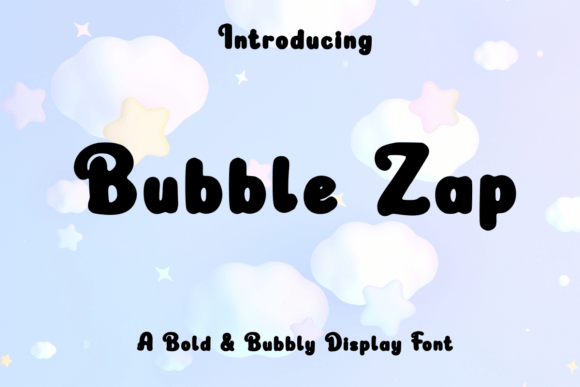
Bubble Zap Font: The Ultimate Choice for Playful and Colorful Designs
The world of typography is vast and diverse, offering a multitude of font styles to suit various design needs. Among these, the Bubble Zap Font stands out as a vibrant and energetic display font that embodies the spirit of fun and playfulness. Designed with bold, rounded letters, this font is tailor-made for projects that require a lively and engaging visual appeal. In this article, we’ll explore the features, benefits, and uses of the Bubble Zap Font, and why it’s becoming a favorite among designers and DIY enthusiasts alike.
What is Bubble Zap Font?
Bubble Zap Font is a bubbly, cartoon-inspired display font that bursts with energy and fun. Its bold, rounded letters make it a perfect choice for children’s products, birthday party invitations, toys, games, educational materials, stickers, packaging, and more. The font’s design is centered around creating a playful and friendly aesthetic, making it ideal for any project that aims to capture the attention of a younger audience or evoke a sense of nostalgia.
Key Features of Bubble Zap Font
- Full Standard Character Support: The Bubble Zap Font includes a comprehensive set of characters, ensuring that you have access to all the letters, numbers, and punctuation marks you need for your designs.
- Punctuation and Multilingual Glyphs: Beyond standard characters, this font also supports punctuation and multilingual glyphs, making it versatile for projects that require a range of special characters or languages.
Ideal Use Cases for Bubble Zap Font
The Bubble Zap Font’s playful and energetic vibe makes it suitable for a wide range of applications. Here are some of the ideal use cases for this font:
- Children’s Products: From educational materials to toys and games, the Bubble Zap Font is perfect for creating engaging and fun content for kids.
- Birthday Party Invitations: Make your party invitations stand out with this vibrant font, setting the tone for a fun and memorable celebration.
- Educational Materials: The font’s clarity and playfulness make it an excellent choice for textbooks, workbooks, and other educational resources aimed at children.
- Stickers and Packaging: Add a playful touch to your product packaging or stickers with the Bubble Zap Font, making them more appealing to your target audience.
Design Tips for Using Bubble Zap Font
To maximize the impact of the Bubble Zap Font in your designs, consider the following tips:
- Pair with Complementary Fonts: While the Bubble Zap Font is bold and playful, pairing it with simpler fonts can create a balanced and visually appealing design.
- Experiment with Colors: This font looks great in bright, vibrant colors. Don’t be afraid to experiment with different color combinations to find the perfect match for your design.
- Use Appropriate Sizing: The Bubble Zap Font is designed to be eye-catching. Use it in appropriate sizes to ensure it stands out without overwhelming your design.
The Bubble Zap Font is a versatile and fun display font that can add a playful touch to a wide range of design projects. Its bold, rounded letters and friendly aesthetic make it an excellent choice for designers and DIY enthusiasts looking to create engaging and lively content. With its comprehensive character set, multilingual support, and compatibility with popular design tools, the Bubble Zap Font is poised to become a staple in your font collection.
Whether you’re creating children’s products, birthday party invitations, educational materials, or simply looking for a font that can add a bit of fun to your designs, the Bubble Zap Font is an excellent choice. Its ability to grab attention while remaining friendly and approachable makes it a valuable asset for any designer looking to infuse their work with energy and playfulness.